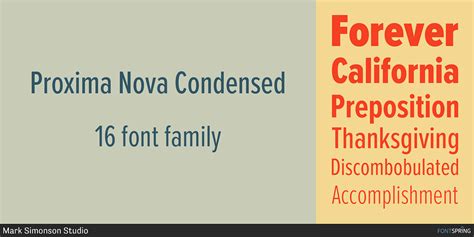
Proxima Nova Condensed Semibold Italic Font by Mark Simonson Studio
Proxima Nova Condensed Font. Web proxima nova condensed is one of the 80 fonts in the proxima nova family, a hybrid typeface that combines modern.
Web proxima nova condensed is one of the 80 fonts in the proxima nova family, a hybrid typeface that combines modern.
Web proxima nova condensed is one of the 80 fonts in the proxima nova family, a hybrid typeface that combines modern. Web proxima nova condensed is one of the 80 fonts in the proxima nova family, a hybrid typeface that combines modern.